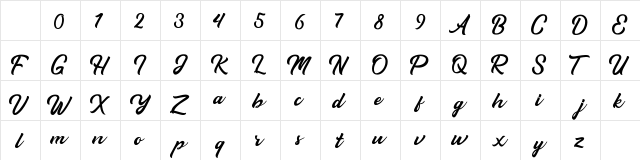
Complete blaster Regular glyph index. Displaying only characters natively supported by blaster Regular font.
blaster is a composed and adaptable typeface that performs quietly and consistently across a wide range of design contexts.